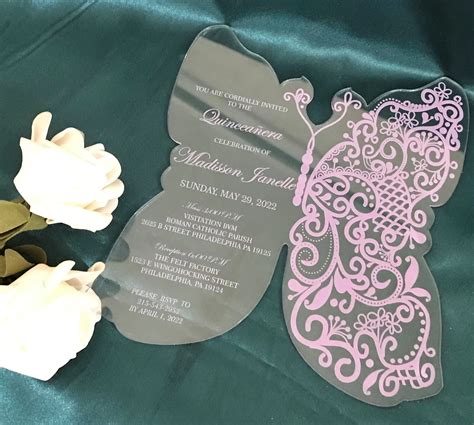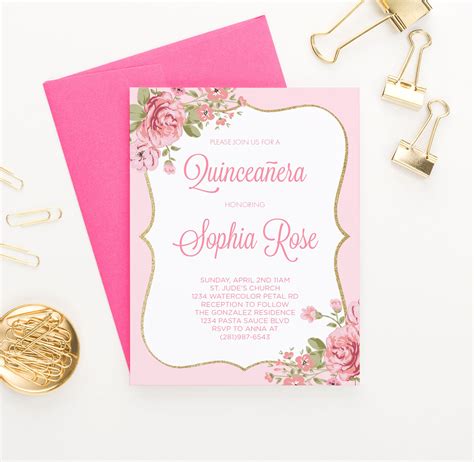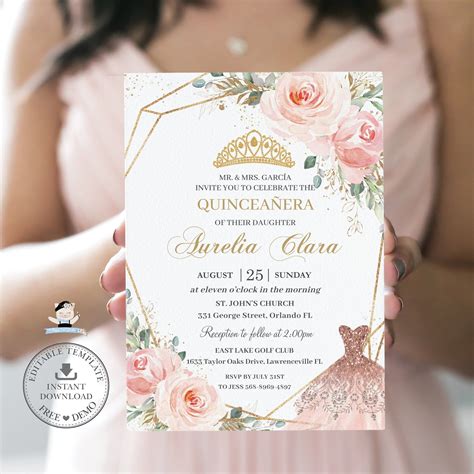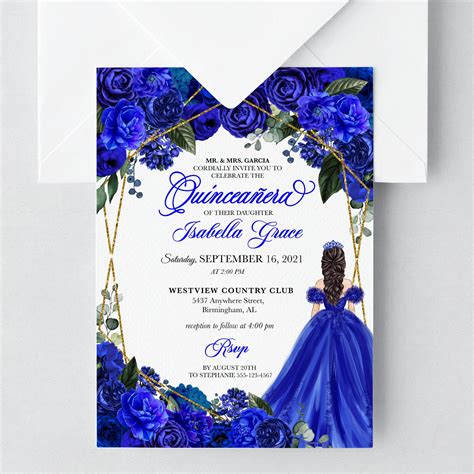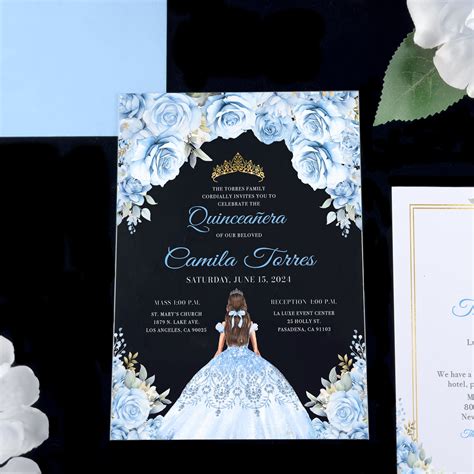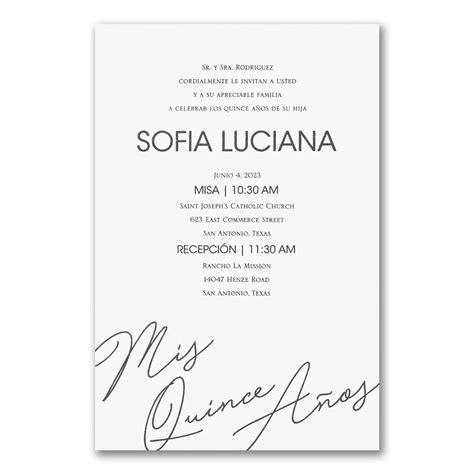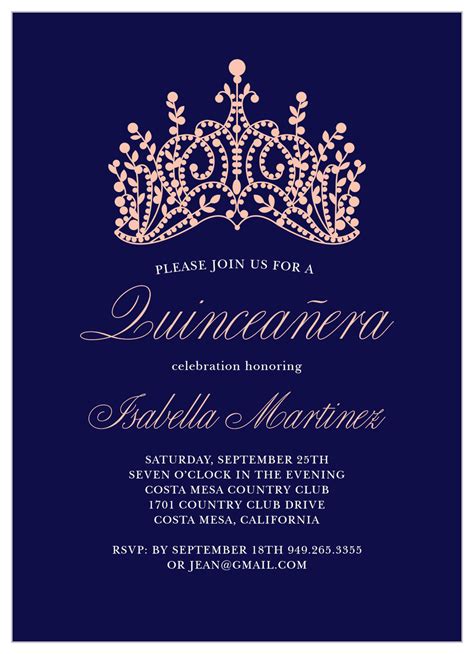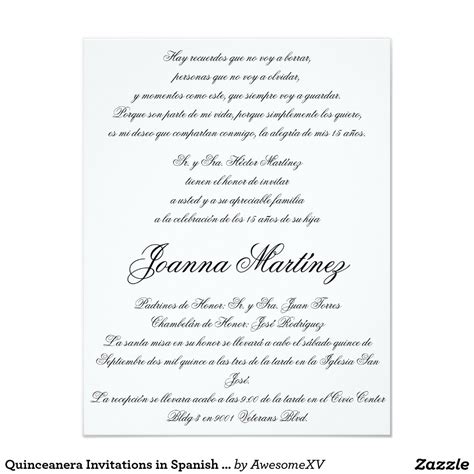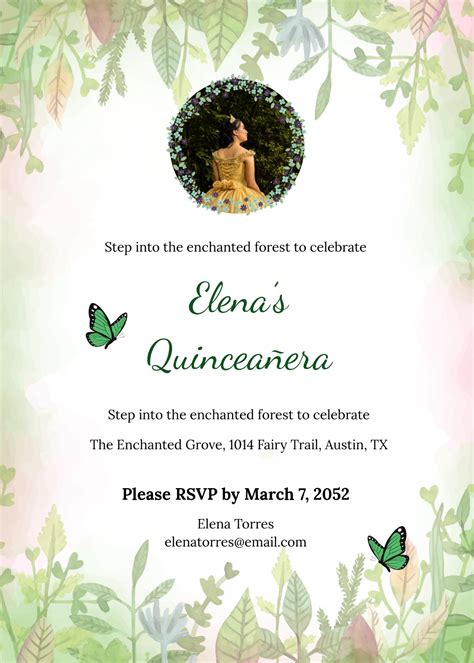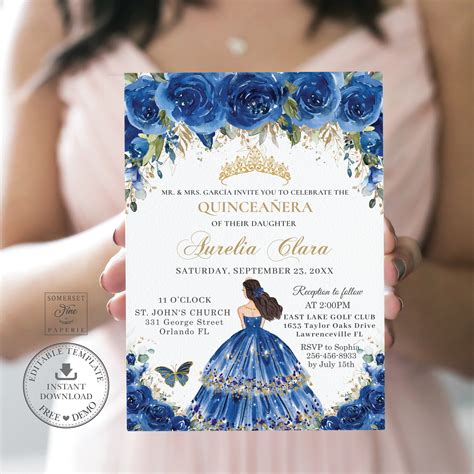
Planning a Quinceañera is a momentous occasion that marks the passage into young muliebrity, and every detail matters, starting with the stationary. Select the perfect font for Quinceañera invitation is more than just an aesthetic pick; it is the first impression your guest will have of your celebration's subject, formalities, and personality. Whether you are aiming for a authoritative, fairy-tale elegance or a mod, smart vibe, the composition you select deed as the vox of your event. With chiliad of digital options uncommitted, sail the landscape of chirography, serif, and decorative scripts can find overwhelming. By focalise on legibility, theme body, and artistic concord, you can make an invitation suite that your friends and menage will prize as a keepsake for days to come.
Understanding Typography Styles for Your Event
Before plunk into specific passport, it is helpful to categorise the types of fount that act better for formal celebrations. The visual weight and manner of the text determine the "mood" of the Quinceañera.
Calligraphy and Script Fonts
Script face are the quintessential choice for formal invitations. They mimic the elegance of hand-written penmanship and lend an air of sophistication. When select a handwriting font for Quinceañera invitations, face for:
- Flowing Ligature: These connect missive swimmingly to create a cohesive face.
- Weight Variance: Eminent demarcation between midst and thin lines lend professional character.
- Readability: Ensure that the missive are not overly ornate, as cursive can go unmanageable to say at small point sizes.
Serif and Sans-Serif Complements
While script fonts are fantabulous for name and titles, they can be unmanageable to say when used for the body text (such as appointment, clip, and fix). Mixing your fount is a key designing strategy:
- Serif Fonts: These feature small strokes at the ending of letters, communicate a traditional and authorized feel. They are perfect for the formal details of the case.
- Sans-Serif Fonts: These are clean and minimalist. Use them if your topic is modern, industrial, or minimalist to balance out a striking playscript exhibit baptistry.
Design Considerations for Invitation Suites
Beyond the font fashion, consider how the composition interacts with the composition lineament and ink choice. Dark ink on cream-colored cardstock stay the industry standard for formal event, but mod course are shifting toward hydrofoil stamping and letterpress technique.
| Idea | Advocate Font Style | Best Couple |
|---|---|---|
| Traditional/Formal | Copperplate or Edwardian Handwriting | Classical Serif |
| Modern/Chic | Geometrical Sans-Serif | Lightweight Sans-Serif |
| Vintage/Boho | Handwritten Brush Script | Rustic Serif |
💡 Tone: Always do a test print on the genuine composition inventory you designate to use. Blind often make baptistery seem bigger and open than they look when printed on coarse-textured report.
The Rule of Two: Mastering Font Pairing
A common error in invitation plan is using too many different typeface. A cluttered invitation lose its elegance promptly. The "Rule of Two" suggests that you bound your plan to two master fonts. One should be a "presentation" font (the decorative, eye-catching script for the quinceañera's name) and the other should be a "utility" fount (the clean, clear case for the logistics).
If you sense the need for a third fount, use it sparingly - perhaps only for small idiom like "RSVP" or societal medium hashtags - and insure it is a simple, clean variance of your live fonts.
Choose the right typography is a transformative step in the invitation blueprint procedure. By balancing the beauty of decorative scripts with the functional clarity of elementary typefaces, you control that your guest find open, beautiful information about your milestone event. Remember to prioritize the visual hierarchy, afford the most protuberance to the gens of the birthday missy and the date, while letting lowly point support the overall plan without overwhelming the reader. When you approach your stationery with intention and care, you set a beautiful, professional timber for your jubilation. Conduct the time to curate these details see that every invitee understands the significance and manner of your Quinceañera long before they come at the venue.